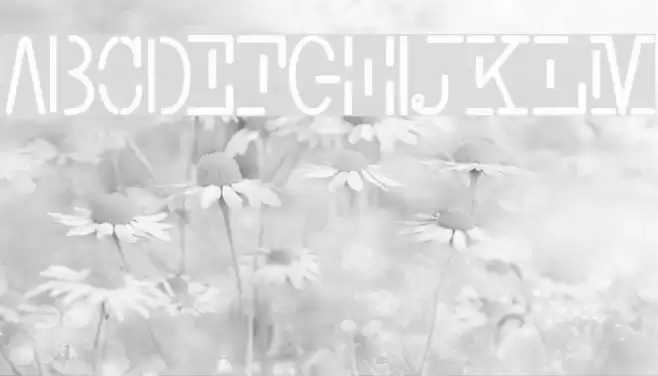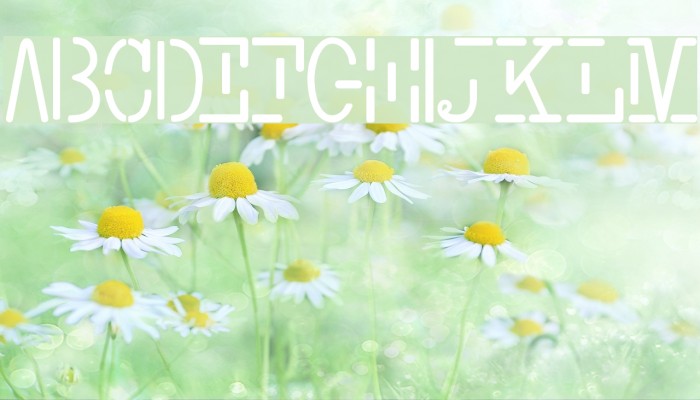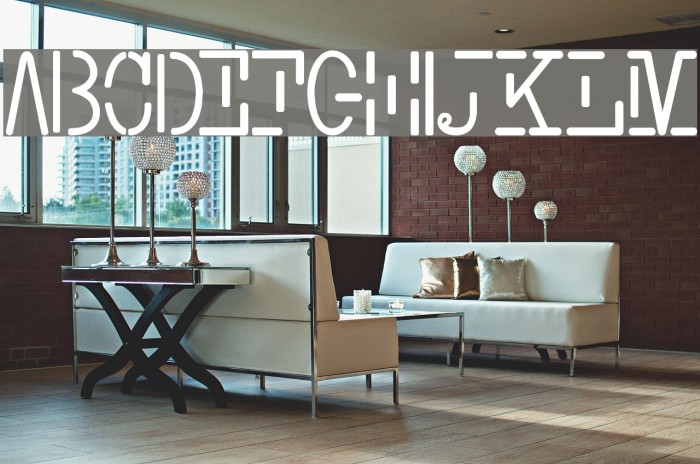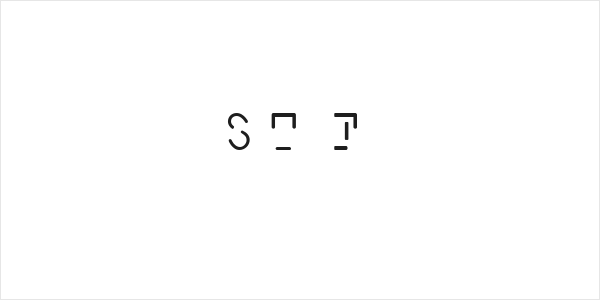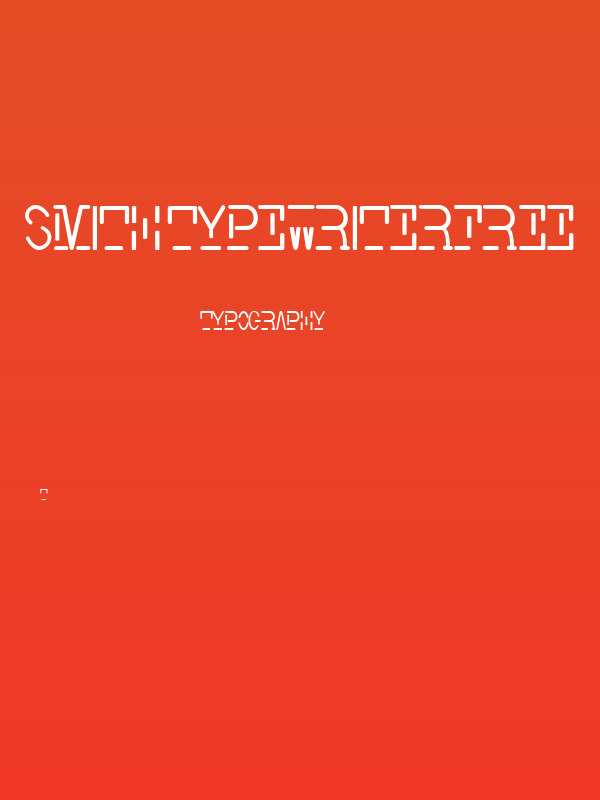
Smith-TypewriterFree Font
Smith-TypewriterFree Description
This font features a unique, stencil-like design with a modern twist. The characters are constructed with bold, rounded strokes that are interrupted by clean, precise gaps, giving it a mechanical and industrial feel. The uppercase letters are particularly striking, with a uniform height and width that create a sense of balance and order. The font's geometric shapes and consistent line thickness contribute to its contemporary aesthetic, making it suitable for projects that require a bold and innovative look.
A modern, stencil-inspired font with bold, rounded strokes and geometric shapes from Uncategorized fonts.
- Proposed Projects: Ideal for branding, posters, and signage where a modern, industrial look is desired.